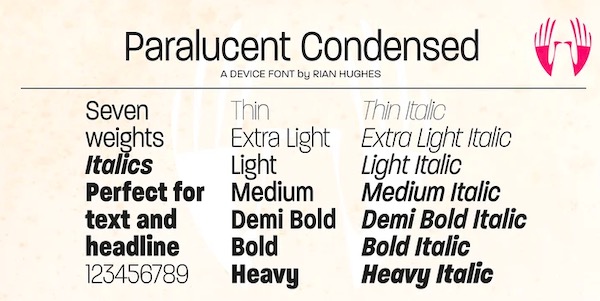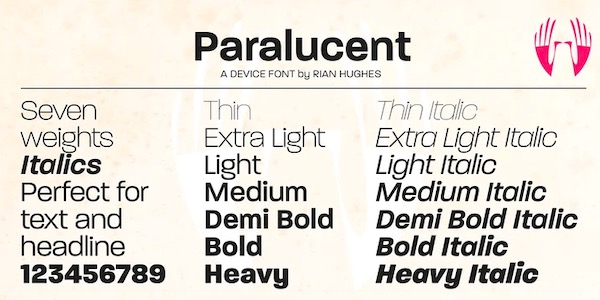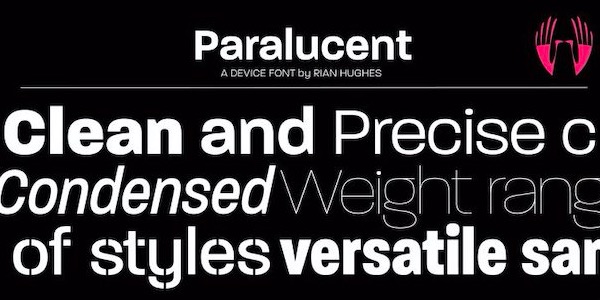
Paralucent is a modern familiar Sans Serif font along with seven different weights, from Thin to Heavy, and in two widths each with corresponding italics, it avoids some of the more eccentric calligraphic quirks of Akzidenz or Helvetica or the cool precision of Univers for an elegant, functional, yet warm design.
There are two additions to the core 28-weight family: a three-weight stencil set, and a four-weight text family. The text weights have been adjusted for use at small point sizes, and feature more open character shapes, looser inter-letter spacing for improved readability, and lining numerals for use in listings and tables.
Several core ideas inform Paralucent’s design. Prime attention has been given to the negative space between characters, giving a more even “color”, especially in text. For example, the J, L, and T have shorter arms than comparable sans typefaces, while the M and W are wider. The A has a lower bar, opening up the interior counter. An unusually high lower-case x-height again helps to give a more even color and improve legibility. Care has been taken to rationalize repeated elements like the tails on lower-case letters, or the Q and the “ear” of the g. Typographic design solutions that are consistent across all these features add more stylistic cohesion.
‘Ink traps’ are exaggerated incisions used to open up a letter’s narrower internal angles, which can become clogged with ink, especially in small point sizes. Now largely redundant due to the high quality of the modern print, they are still sometimes used as a stylistic quirk or design feature. Now that digital fonts are often reversed or outlined, or enlarged to enormous sizes, these can also lead to unexpected or obtrusive results. Paralucent takes these inevitable digital manipulations into account and adds optical corrections without resorting to ink traps.
The family has been picked up by many UK and US publishers, featuring heavily in magazines like Loaded, Heat, and TV Quick, as well as high-end coffee-table photography books and gallery websites.